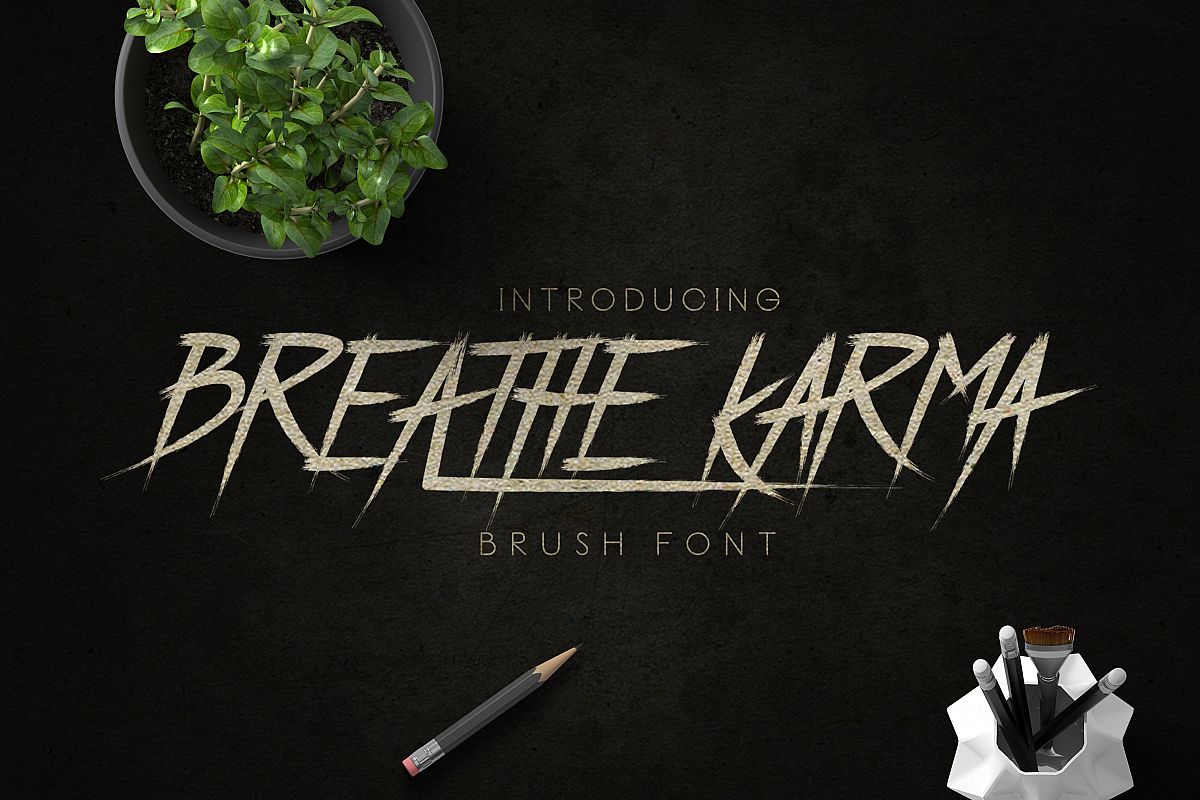
Breathe Karma
Breathe Karma Italic
Breathe Karma
Breathe Karma is a vintage typeface font inspired from classic and old style. suitable to create any branding, product packaging, invitation, qoutes, t-shirt, label poster etc.